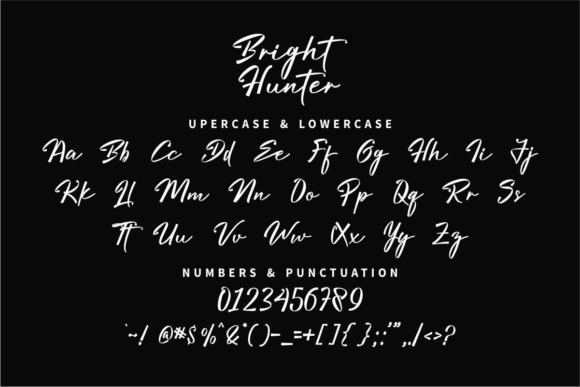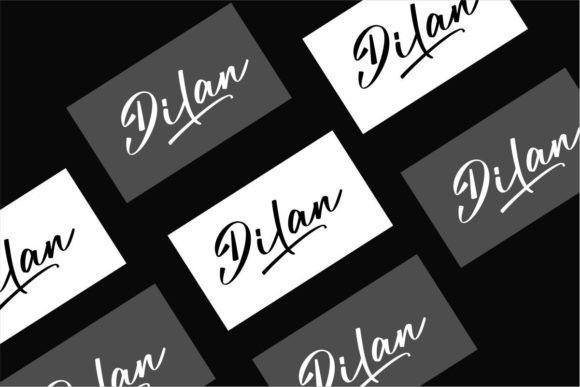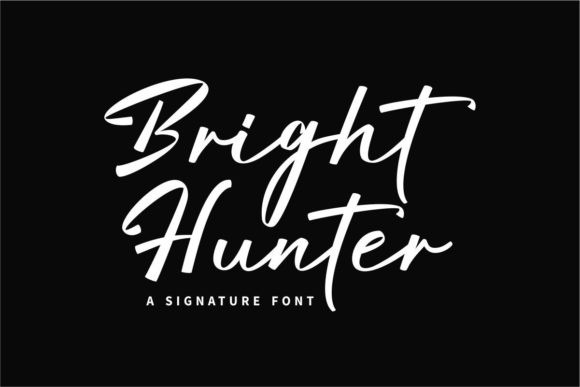
Bright Hunter Font
Bright Hunter Script Font is a relaxed and cursive handwritten font. This gentle font will look gorgeous on a variety of design ideas. Bright Hunter is PUA encoded which means you can access all of the glyphs and swashes with ease!